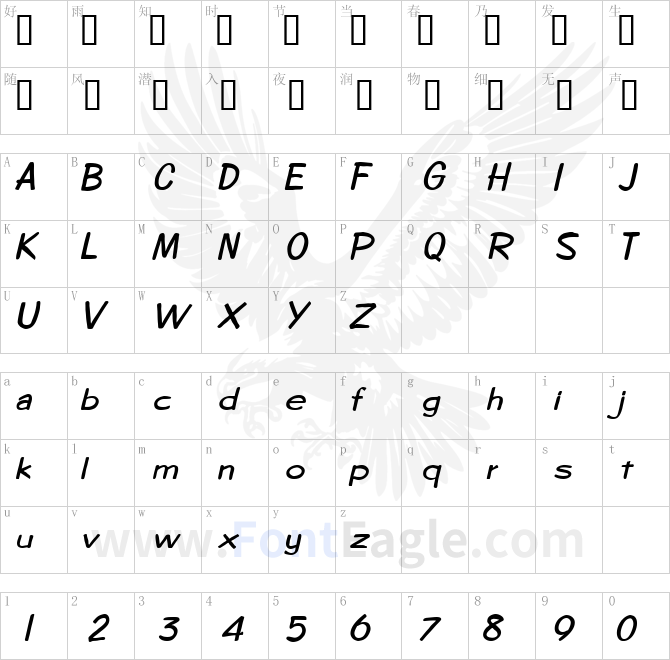
- Font name:Copybook
- Font Subfamily ID:Macromedia Fontographer 4.1 Copybook Bold Italic
- Font Full Name:Copybook Bold Italic
- Postscript:CopybookBoldItalic